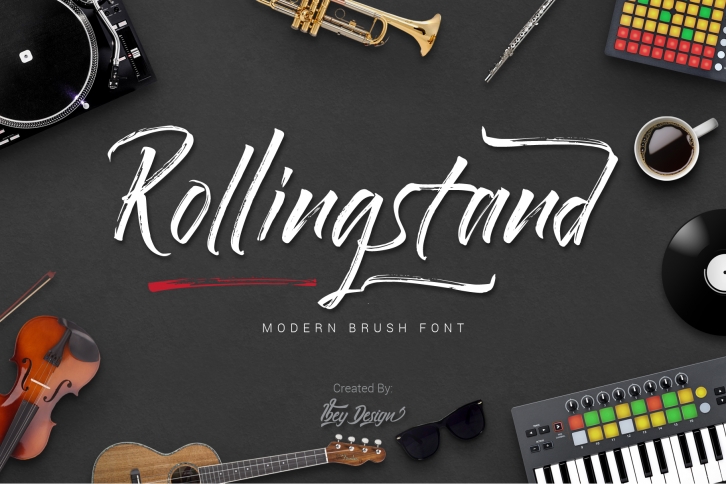
Rollingstand is a great font that was designed by Ibey Design. Imagine the amount of combinations you can create using this font! The archive is 7.21 MB and it was released on December 18, 2019. Rollingstand looks beautiful on wedding invitations, greeting cards, logos, posters, labels, t-shirt designs, logos, business cards and is perfect for use in ink or watercolor works, fashion, magazines, packaging and food menus, children's books and more!